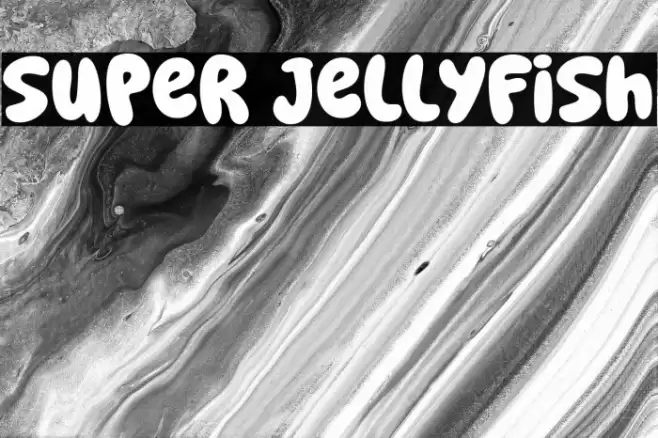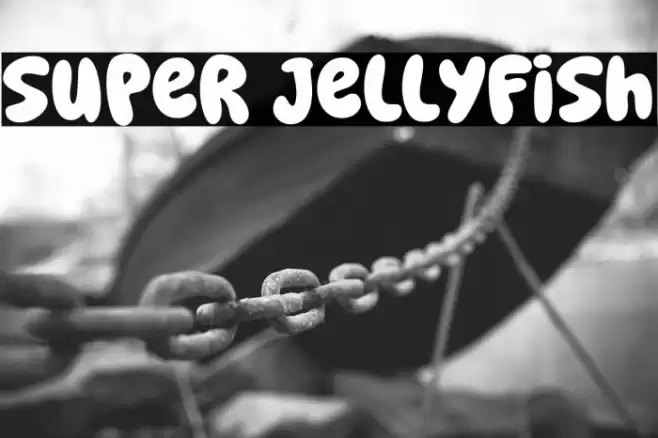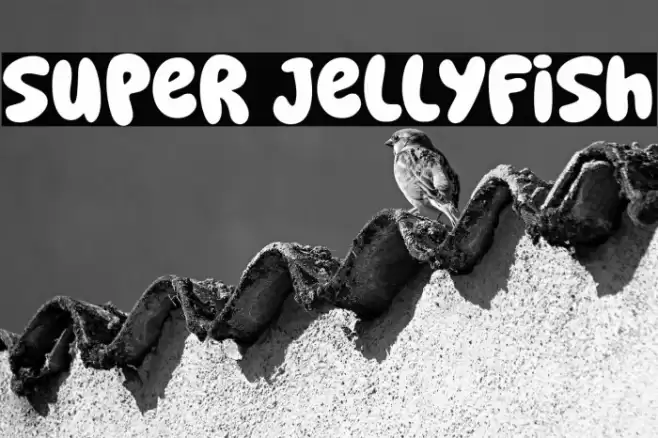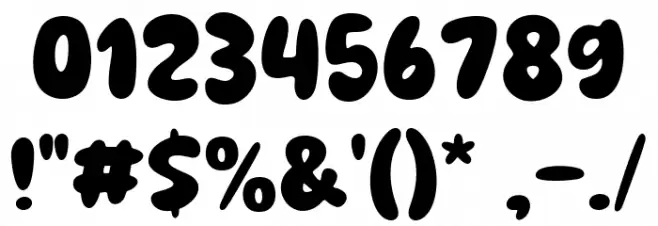
Super Jellyfish Font
Super Jellyfish Description
This playful and bold typeface features rounded, bubbly characters that exude a sense of fun and whimsy. The letters are thick and substantial, with a consistent stroke width that gives them a cohesive and unified appearance. The font's rounded edges and smooth curves contribute to its friendly and approachable feel, making it ideal for projects that require a touch of lightheartedness. The numerals and special characters maintain the same playful style, ensuring uniformity across all text elements.
A bold, rounded typeface with a playful and whimsical style from Uncategorized fonts.
- Proposed Projects: Ideal for children's books, playful branding, party invitations, and any project that requires a fun and approachable typeface.
- Overall Style: Playful